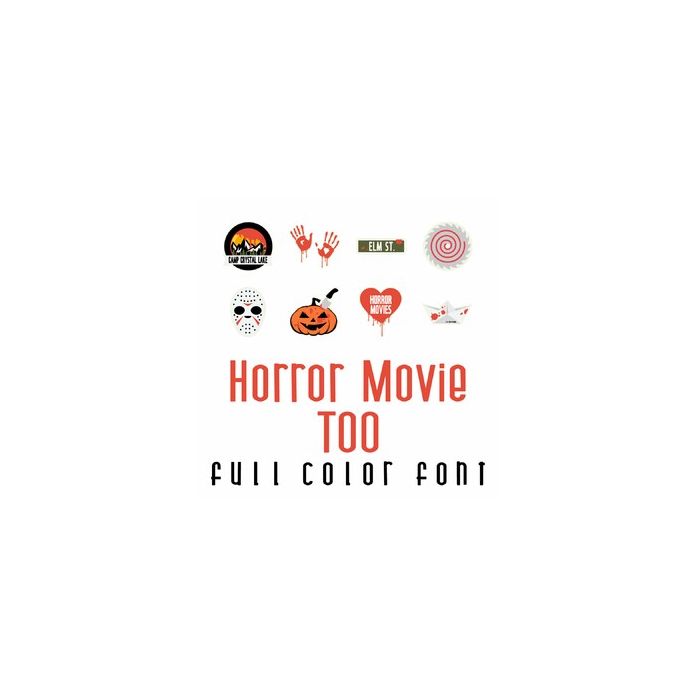
This fun full color doodlebat font 26 images from your favorite spooky movies. Perfect for Halloween, parties, gifts, crafts, decor, planner stickers, scrap book pages and more!